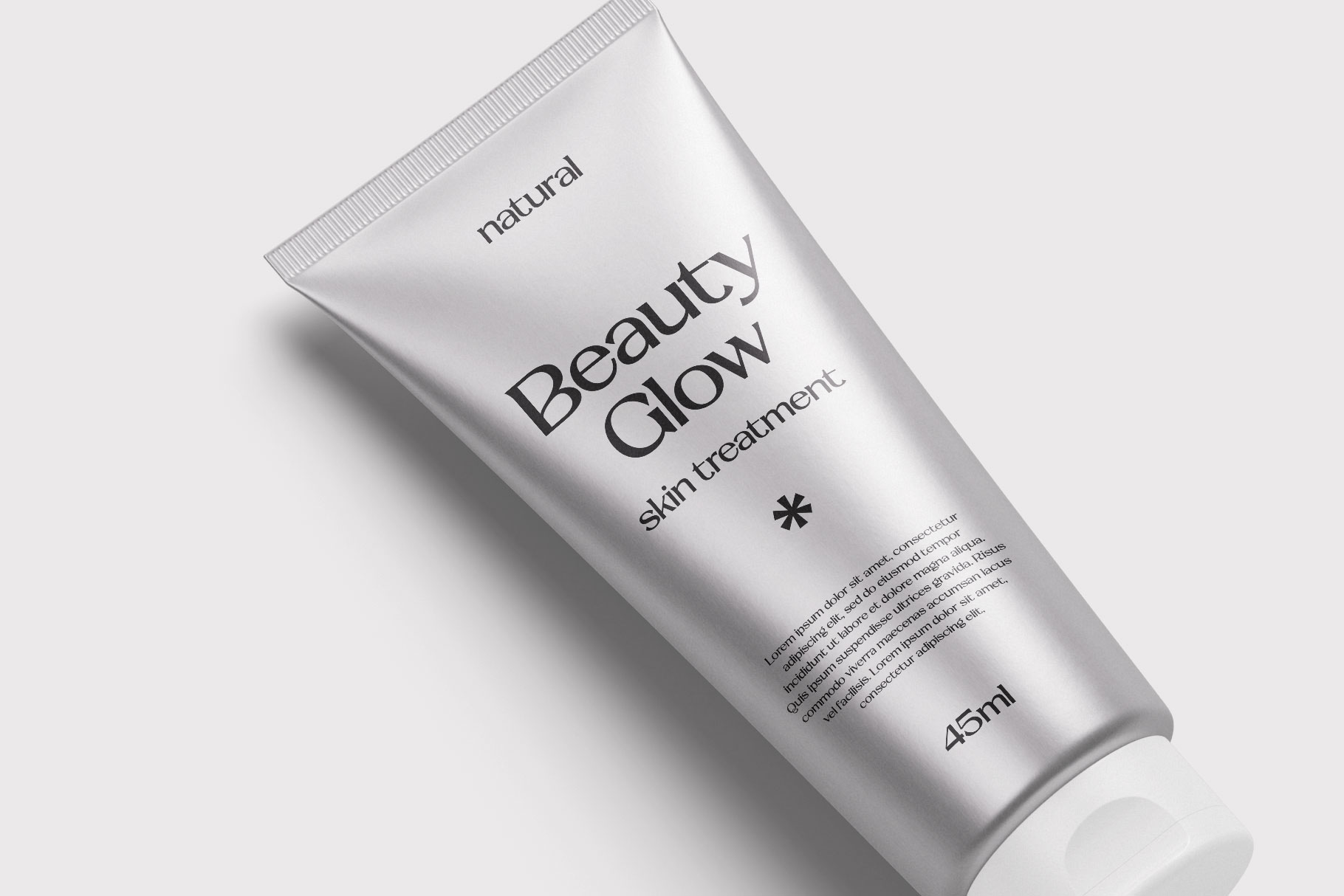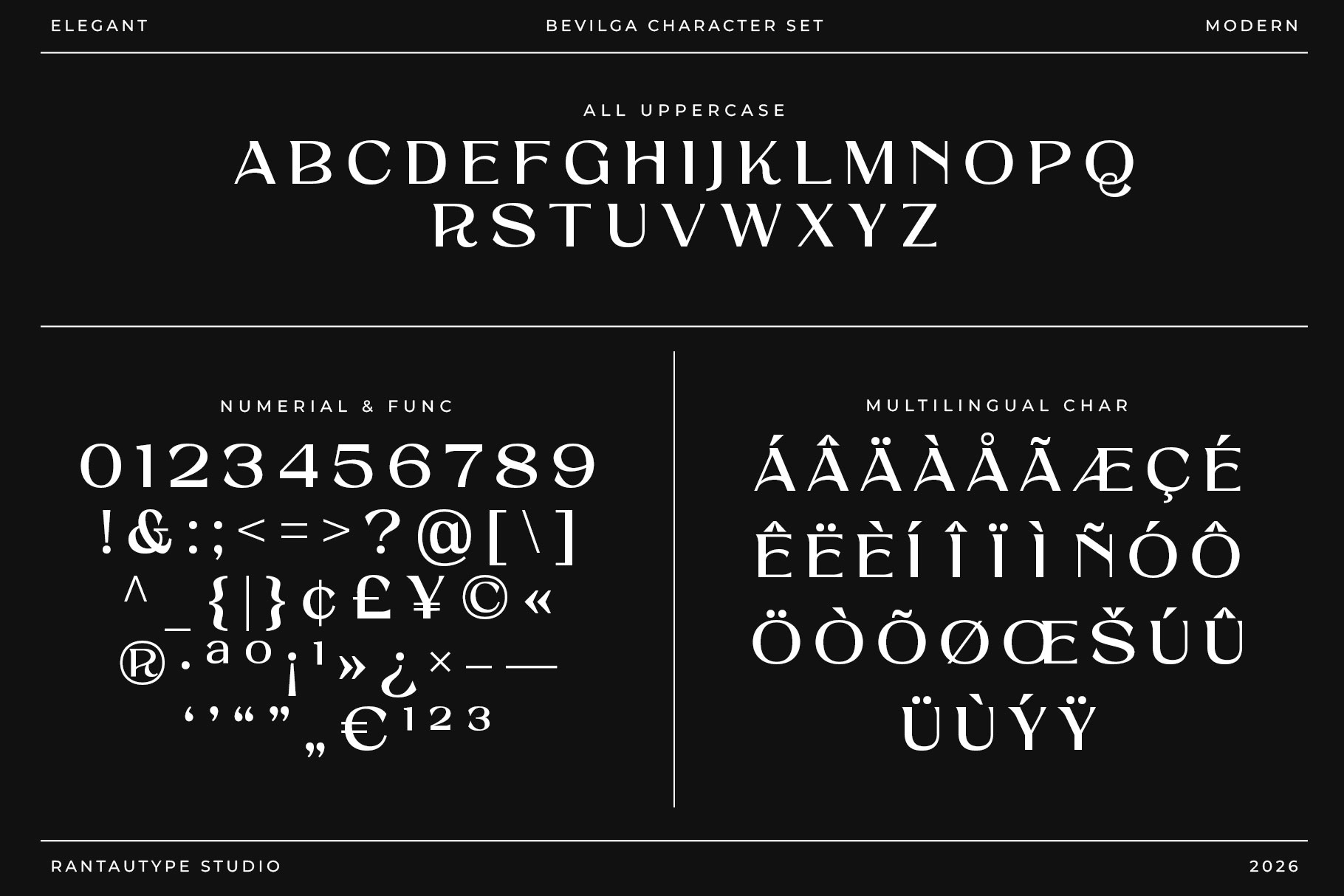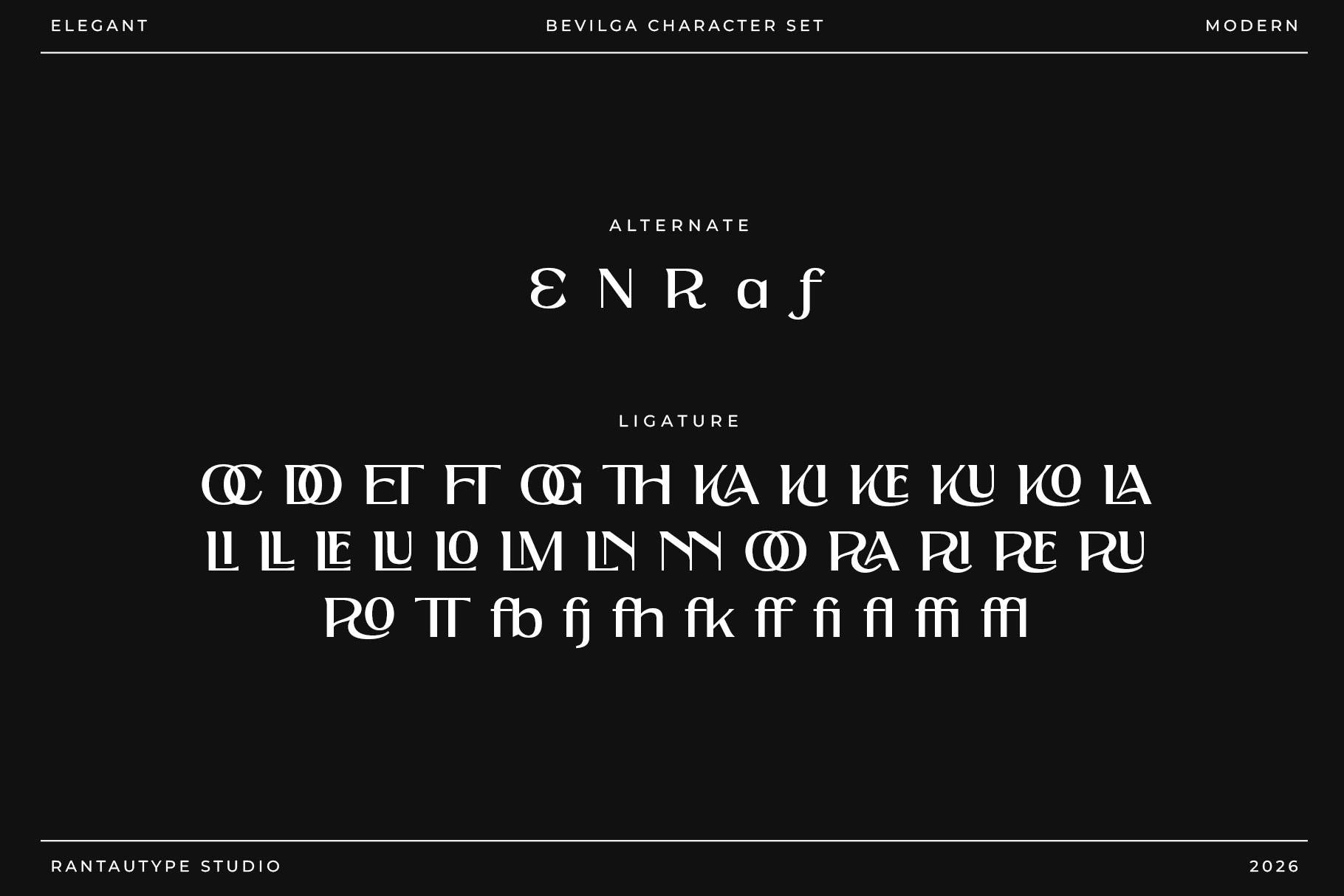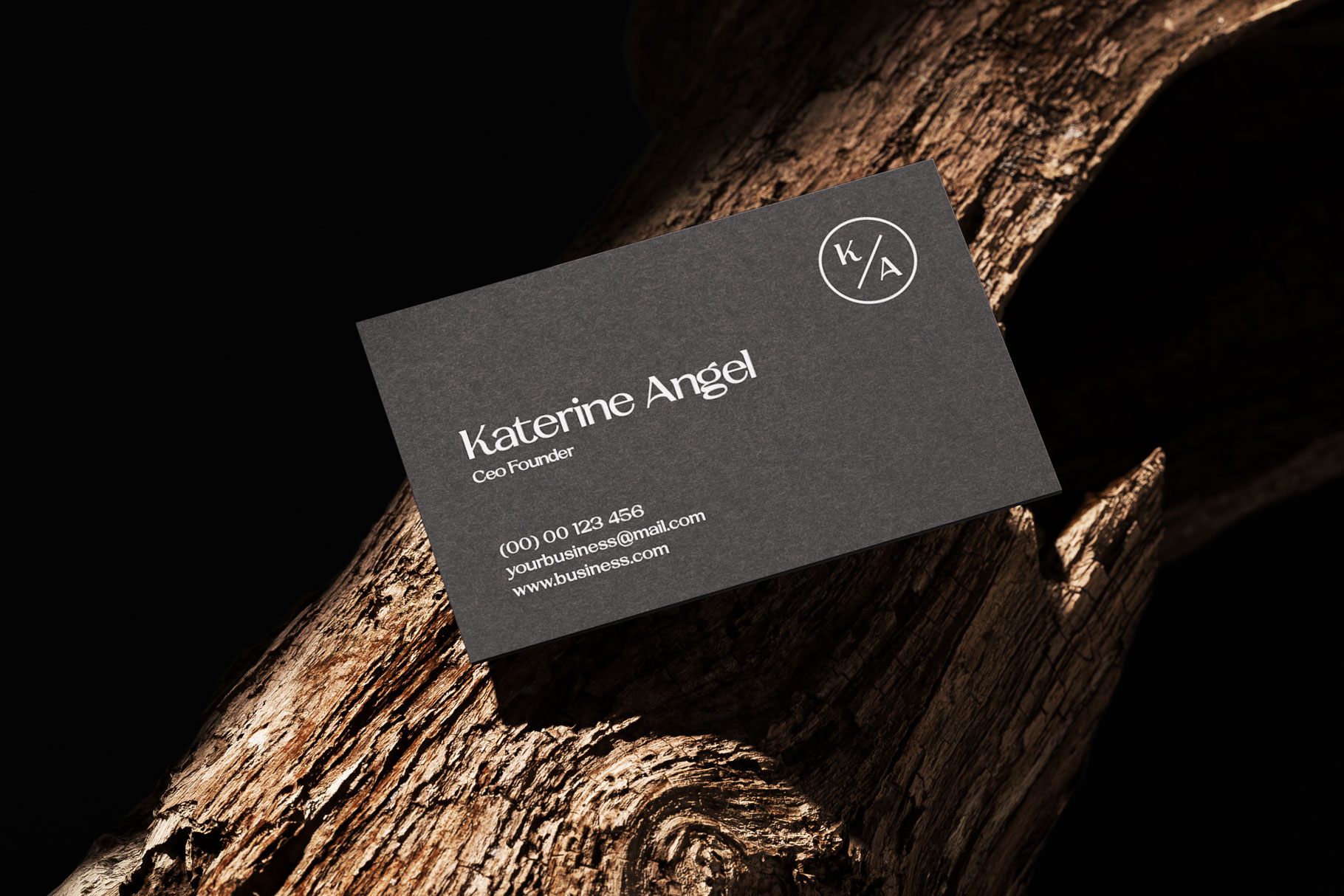
Bevilga Elegant Branding Font
Bevilga is a elegant font paired with thoughtful branding design creates a timeless visual identity that speaks with quiet confidence and refined sophistication. Characterized by graceful curves, balanced proportions, and subtle contrast, an elegant typeface carries a sense of luxury without overwhelming the message.
Bevilga is a perfectly choice for any creative endeavor, creating, modern, lifestyle design such as logotype, title, cover, branding, invitations, wedding designs, display and magazine, social media posts, advertisements, printed quotes, product packaging, corporate brand, product designs, labels, photography, watermarks, special events and any other project with modern touch.